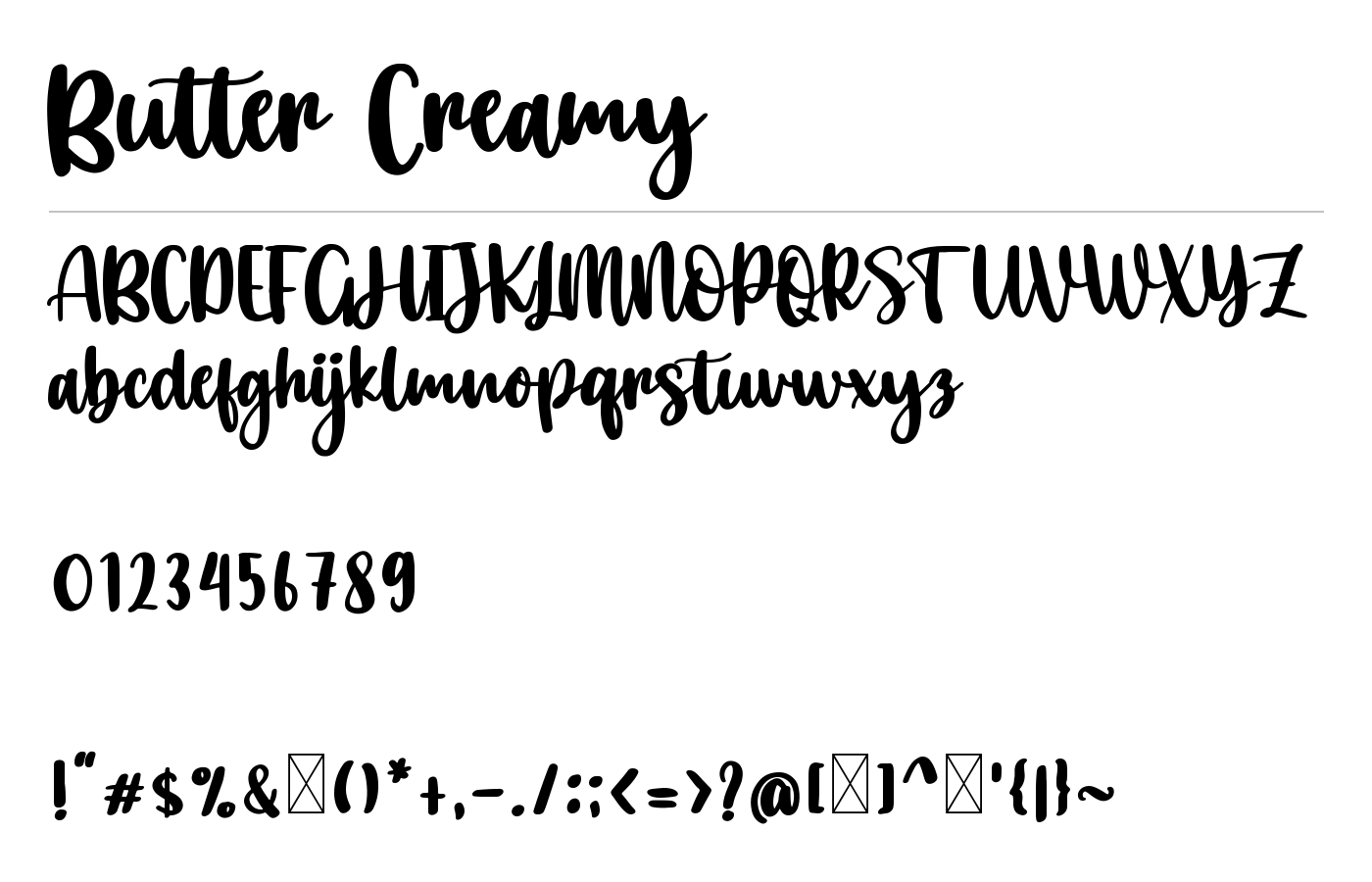
Butter Creamy is a playful, handwritten script font with a friendly and inviting feel, characterized by its smooth, bold strokes and lively, flowing letterforms. Its moderate contrast and casual style make it perfect for creative branding, packaging, and social media where a warm, approachable vibe is desired. This font works especially well for logos, headlines, and any design that benefits from a personal, fun touch.
Butter Creamy Font
About Butter Creamy Font
| Designer | Dian Haniffan Hadi |